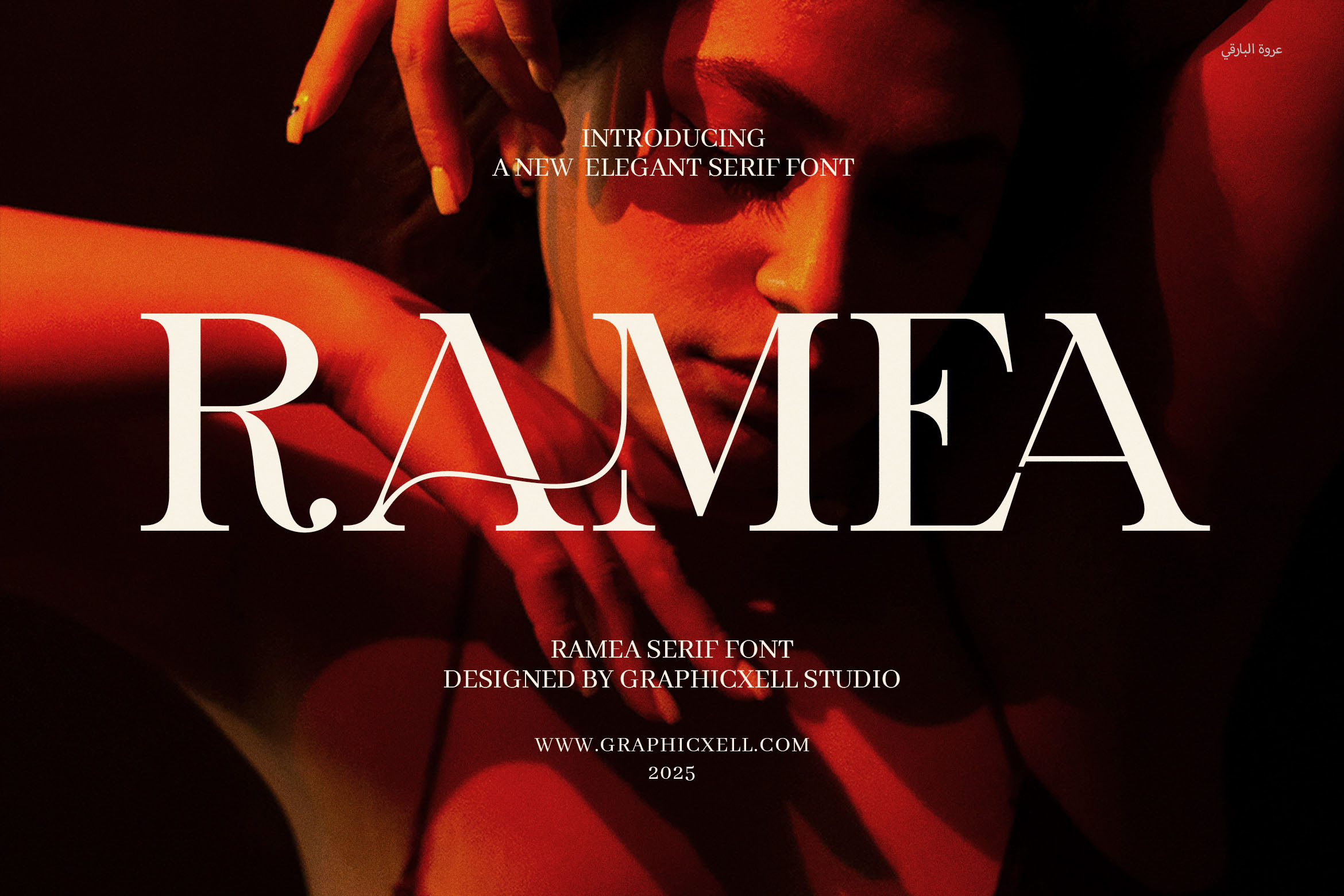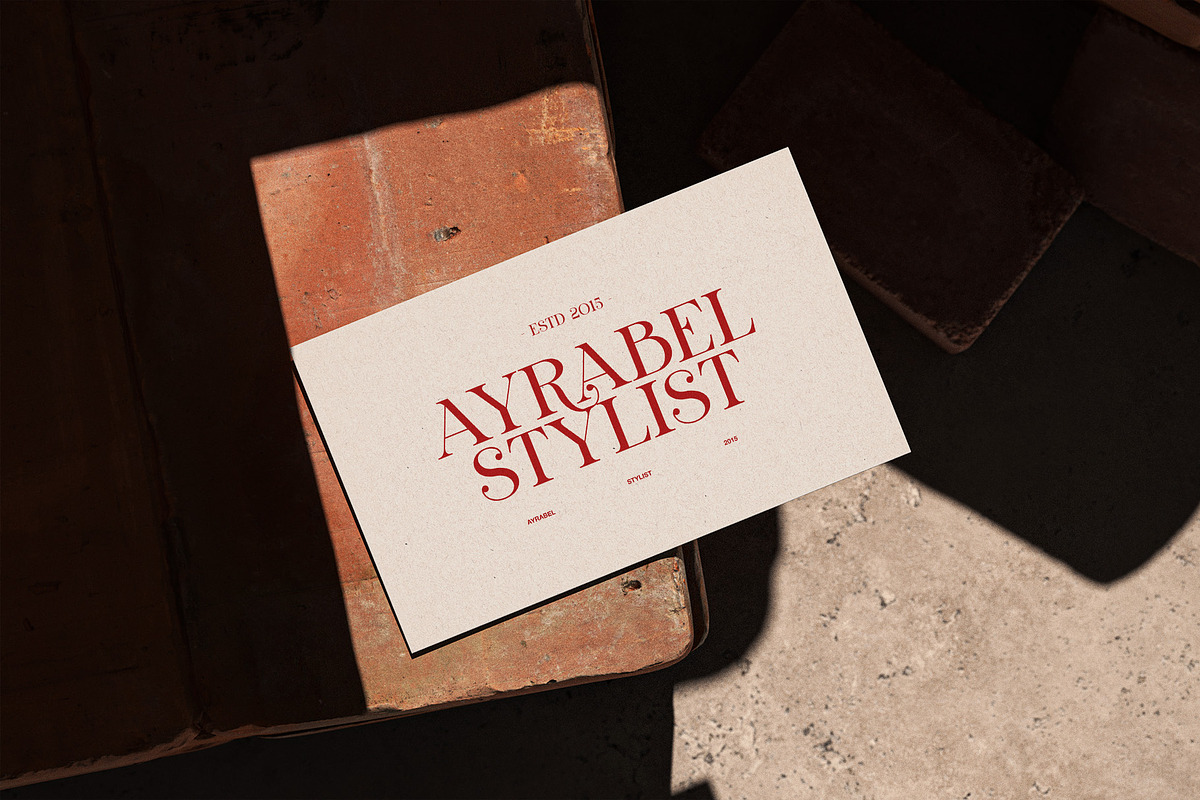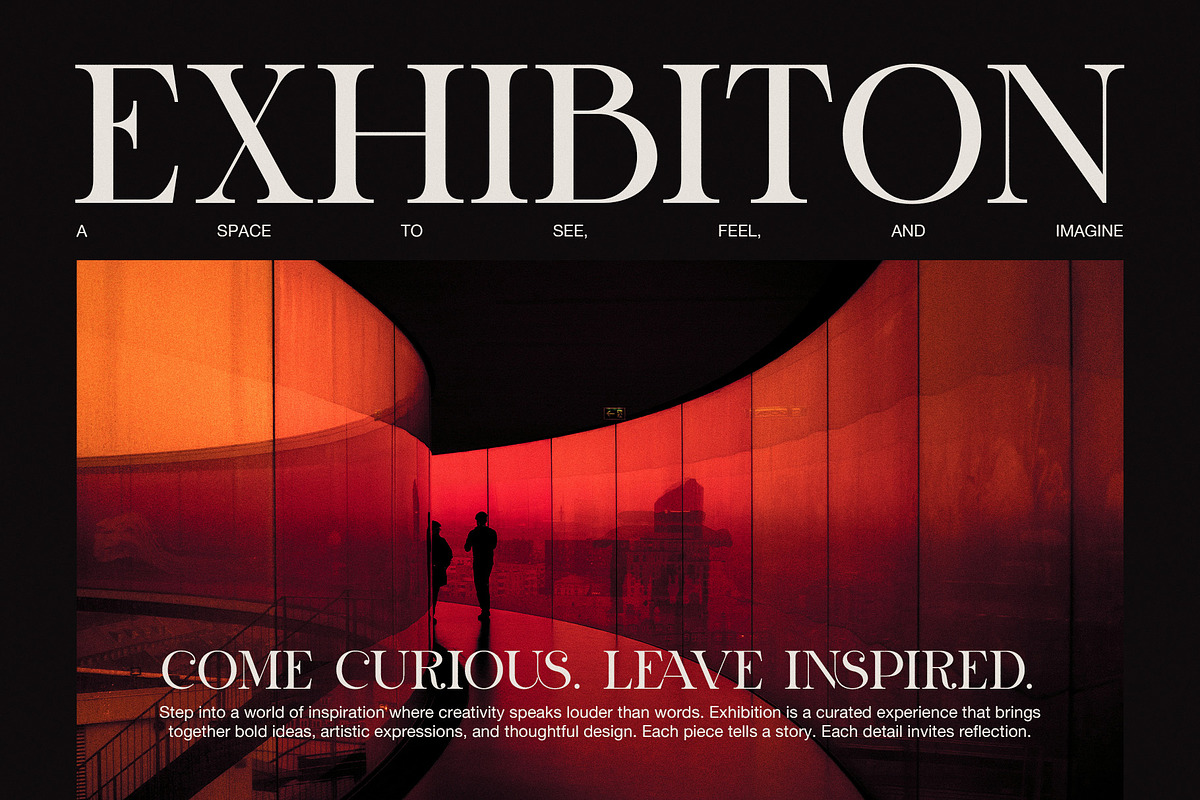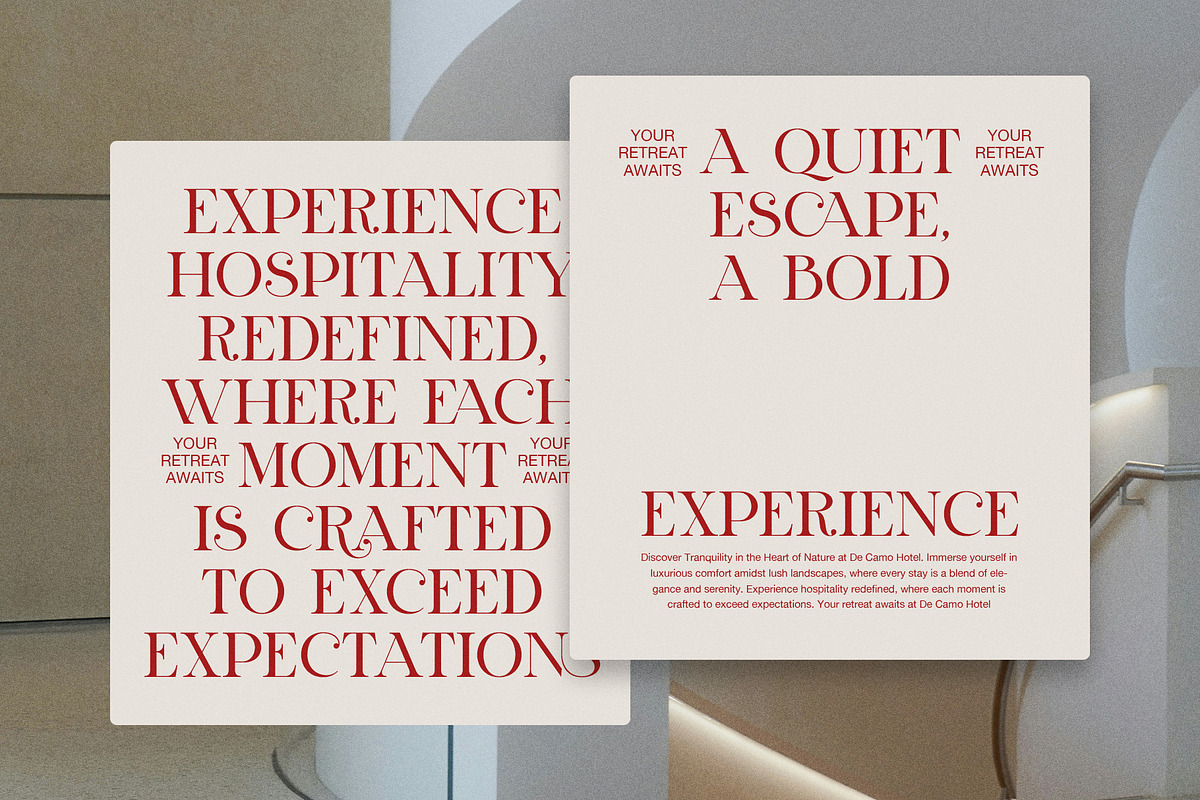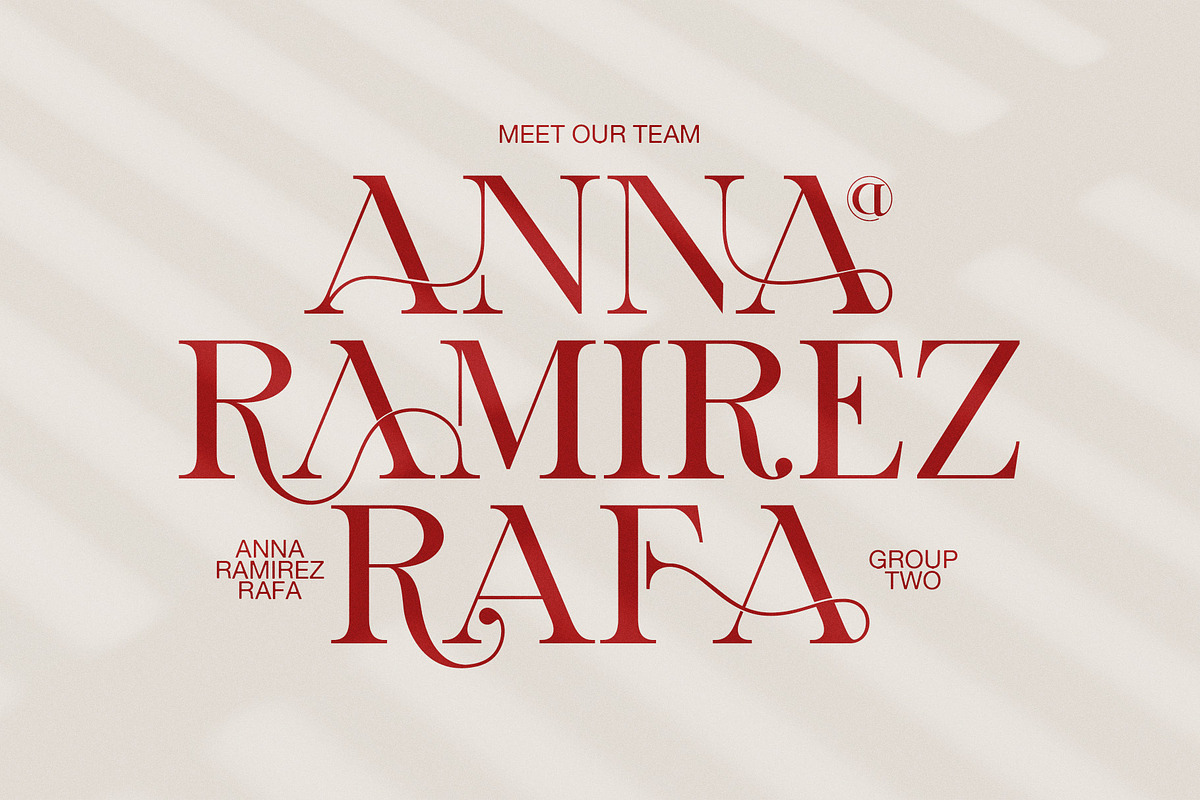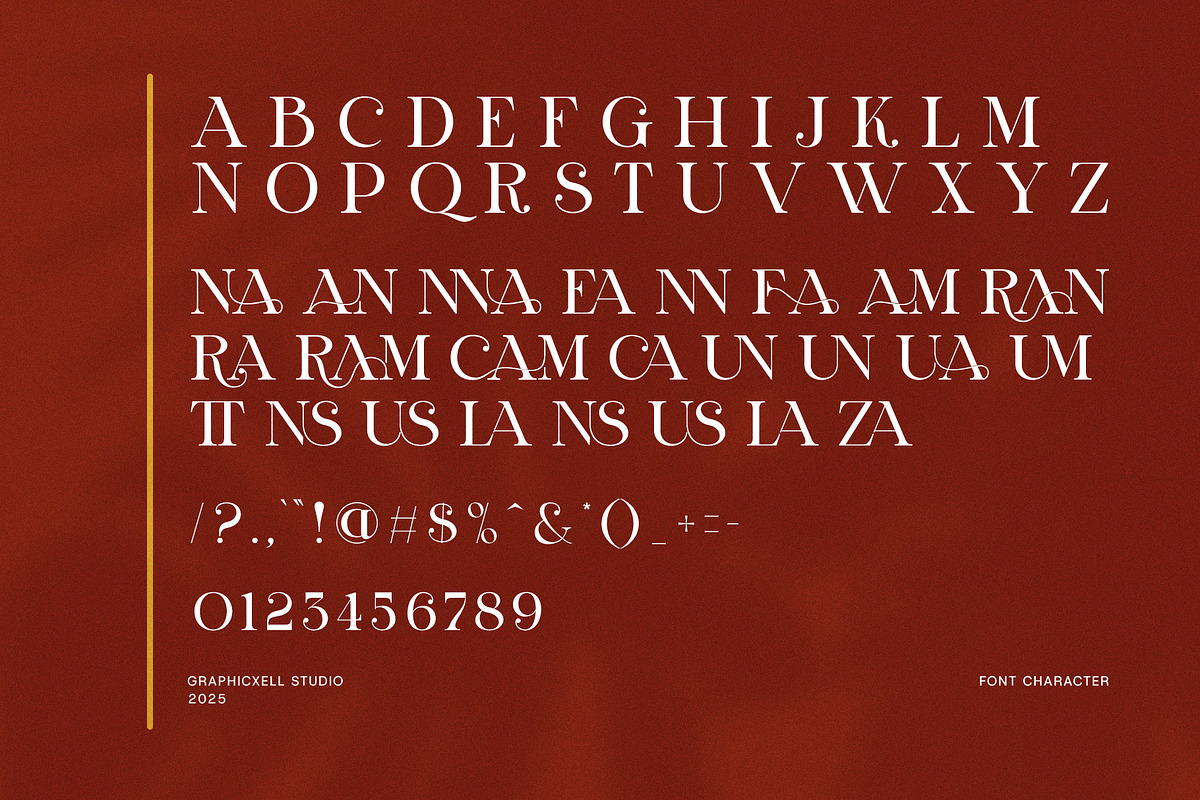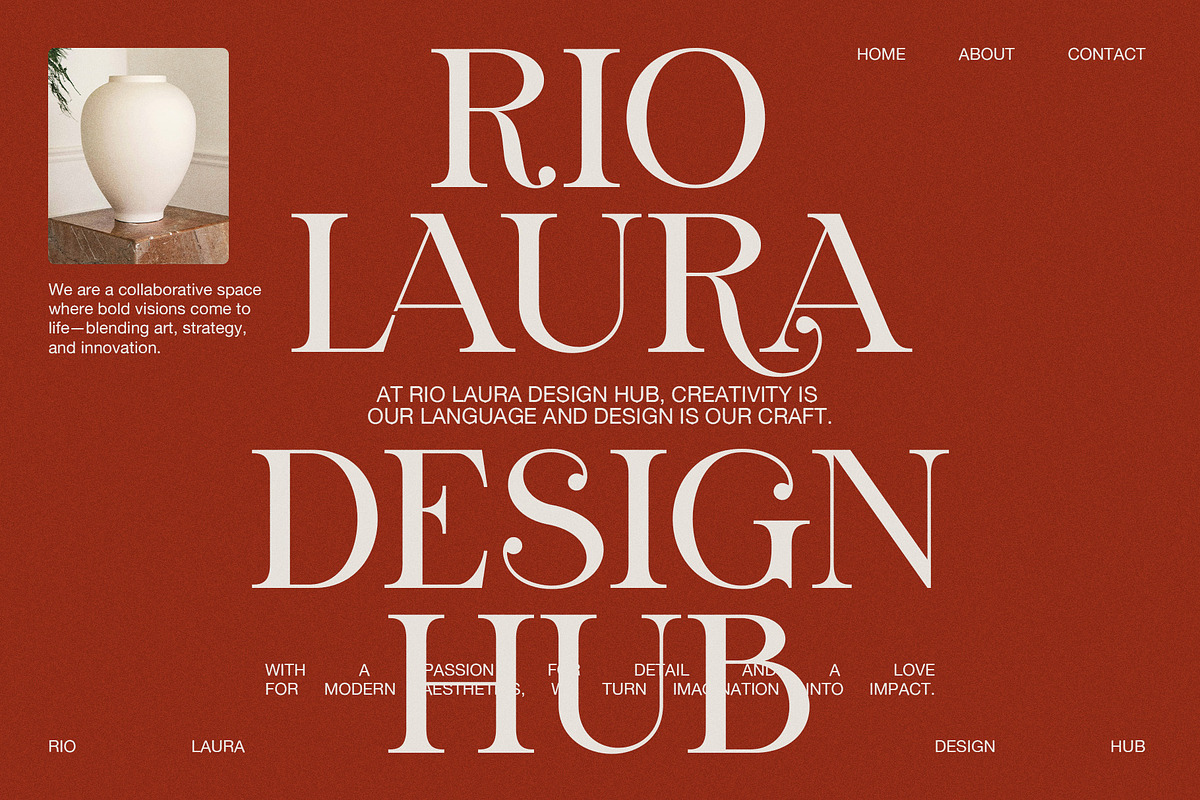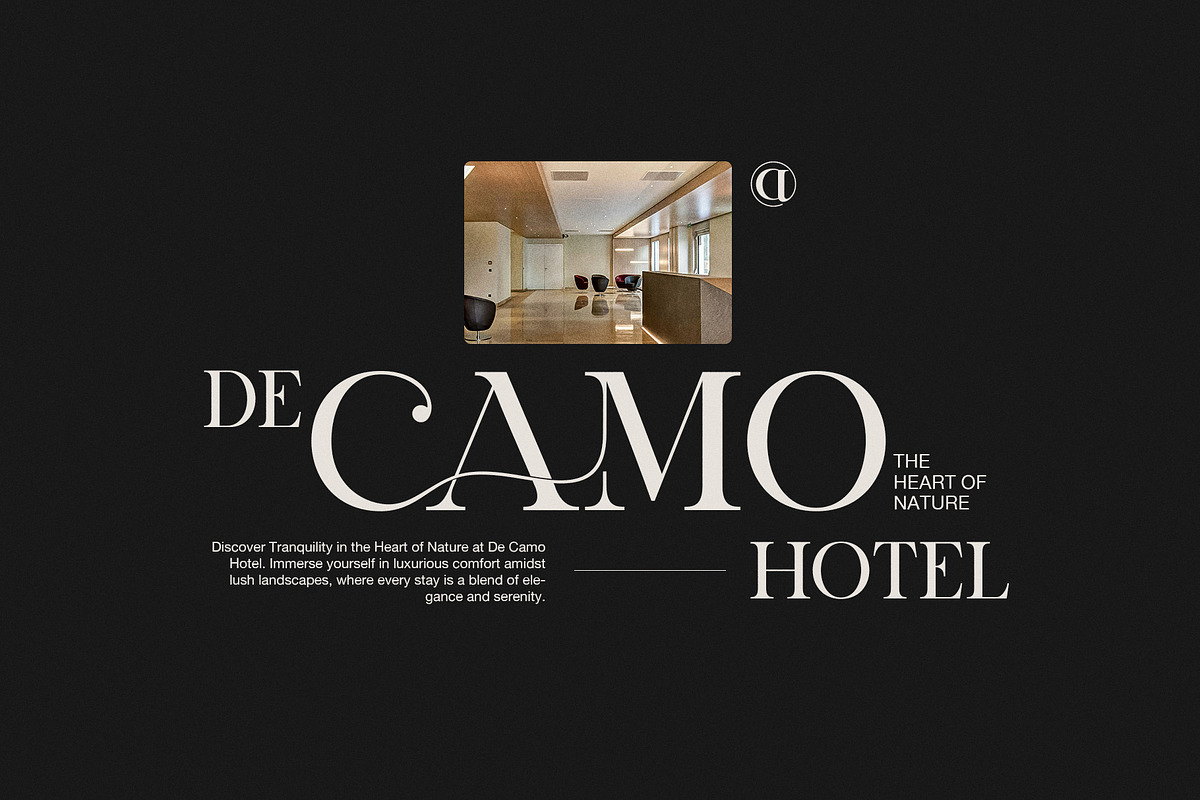
Ramea Elegant Serif Font
Introducing Ramea Elegant Serif Font, a striking fusion of contemporary sophistication and timeless design. Crafted with elegance in mind, Ramea features beautifully sculpted serifs that elevate your text, making it perfect for a wide array of creative projects. Whether you’re designing a sleek logo, developing a brand identity, or creating stunning website content, this font's refined details will bring an air of luxury and professionalism to your work.
Ideal for branding, magazines, and advertisements, Ramea seamlessly combines modern and classic elements, making it versatile enough for both traditional and forward-thinking designs. Its bold, yet graceful lines offer readability, while its unique letterforms ensure that your message stands out with a sense of distinction.
The elegant serif style gives Ramea a high-end feel, perfect for boutiques, fashion brands, and luxury products. Whether applied to print layouts, product packaging, or digital platforms, Ramea's crisp and stylish presence enhances the visual appeal of any project. It’s also an excellent choice for food industry branding or any design looking for that perfect balance of elegance and modern flair.
Ramea Elegant Serif Font is not just a typeface – it’s an investment in your creative vision. Its unique character and refined design make it a perfect choice for any brand looking to exude class and distinction.